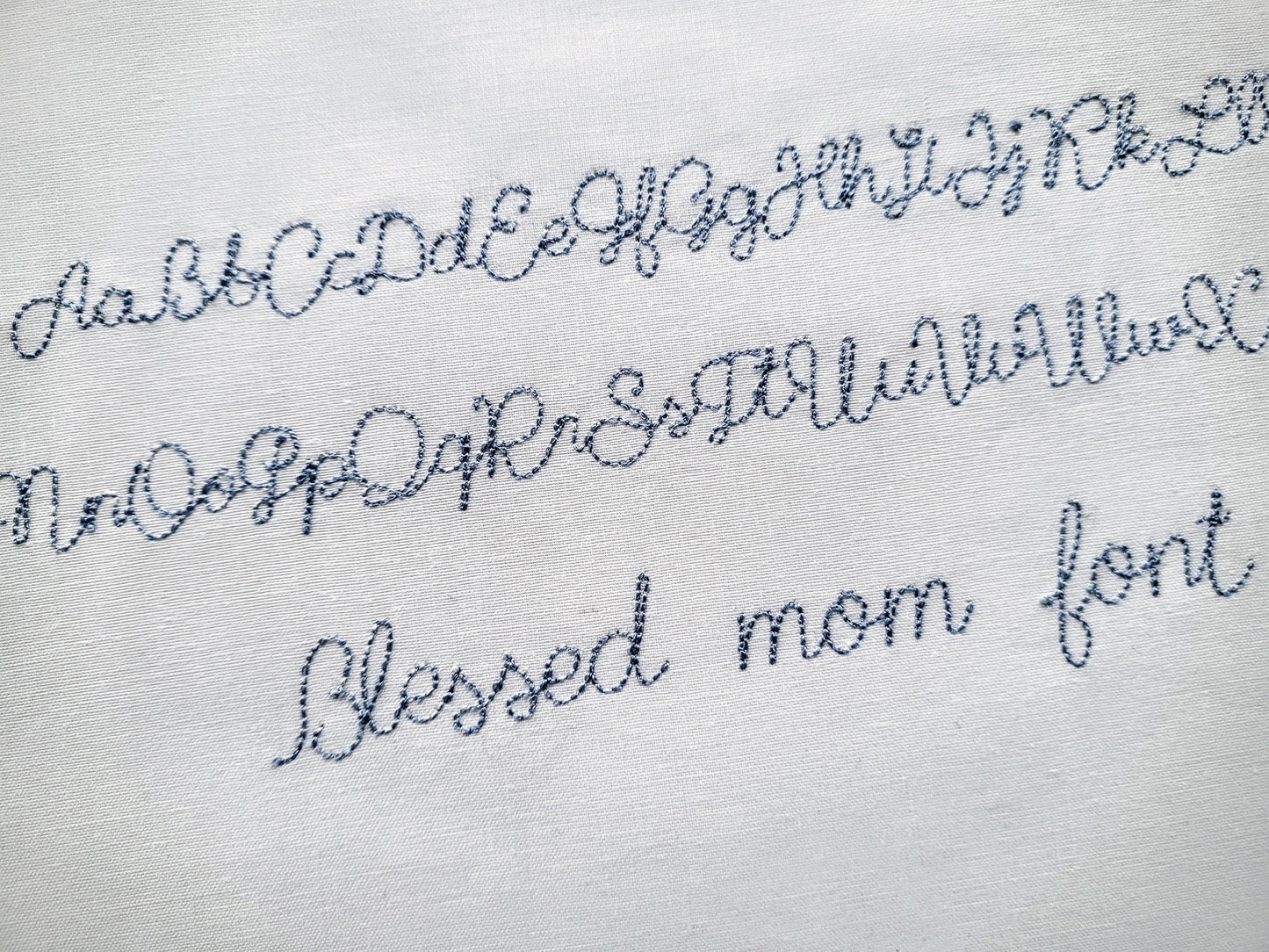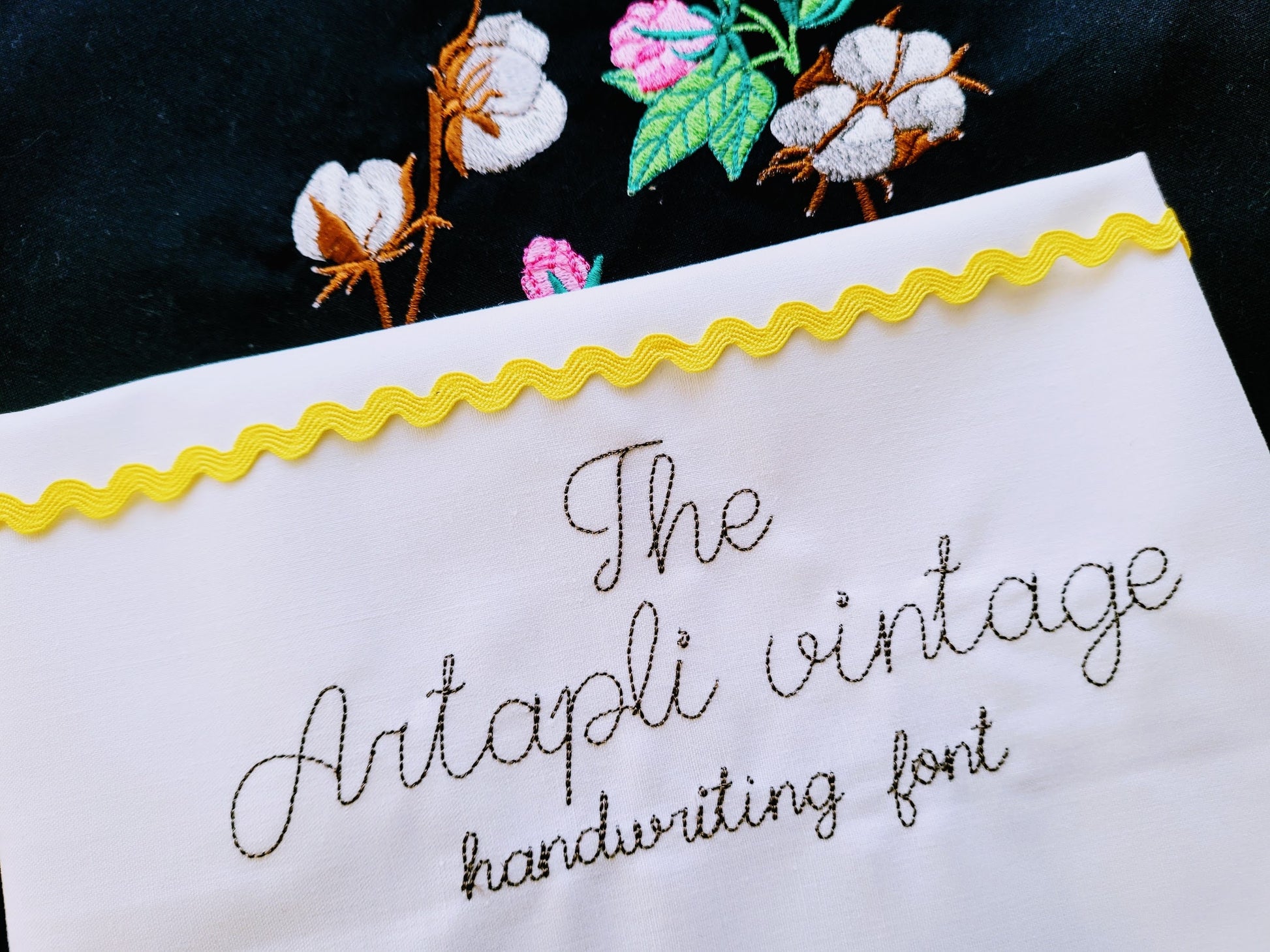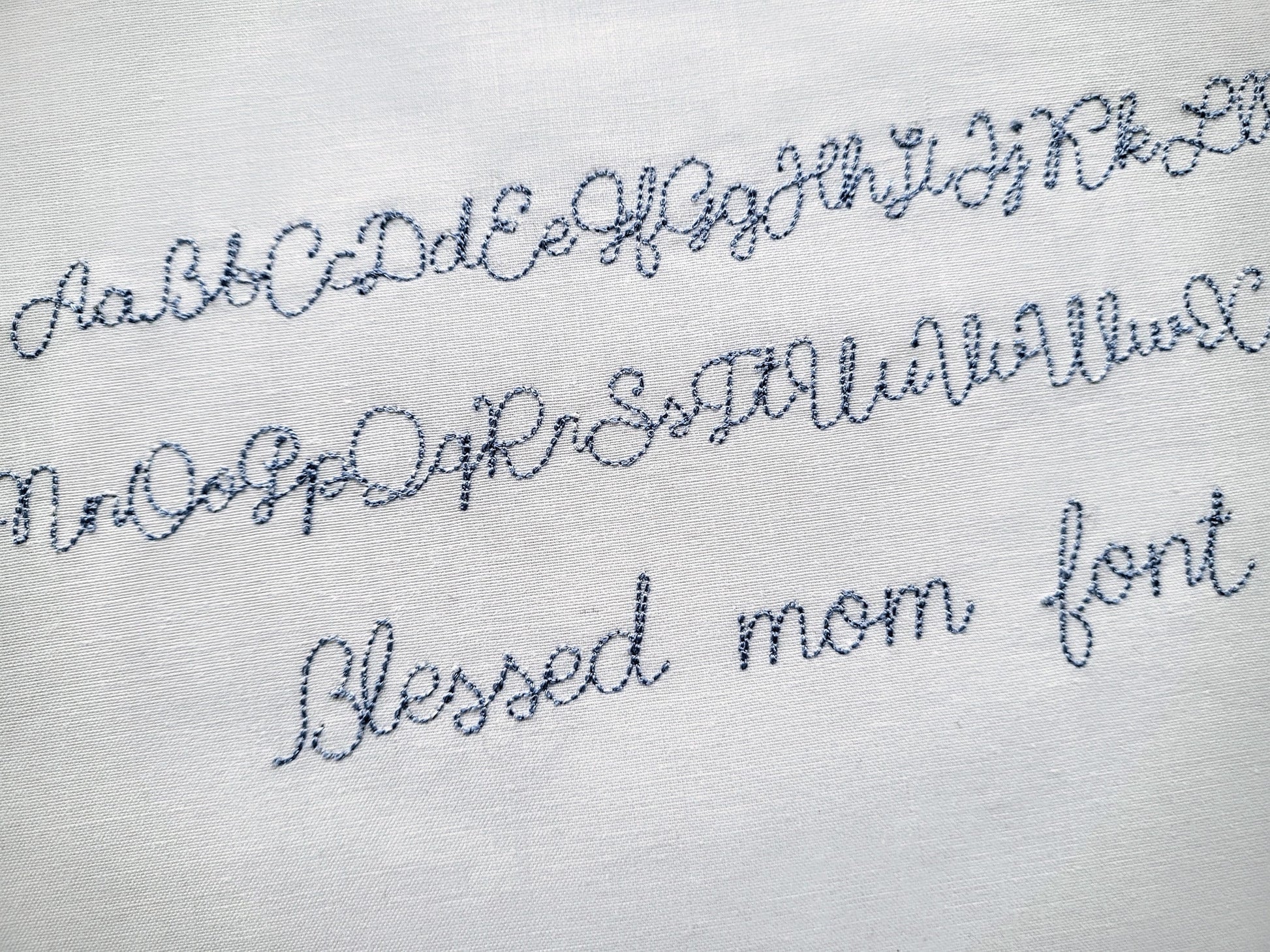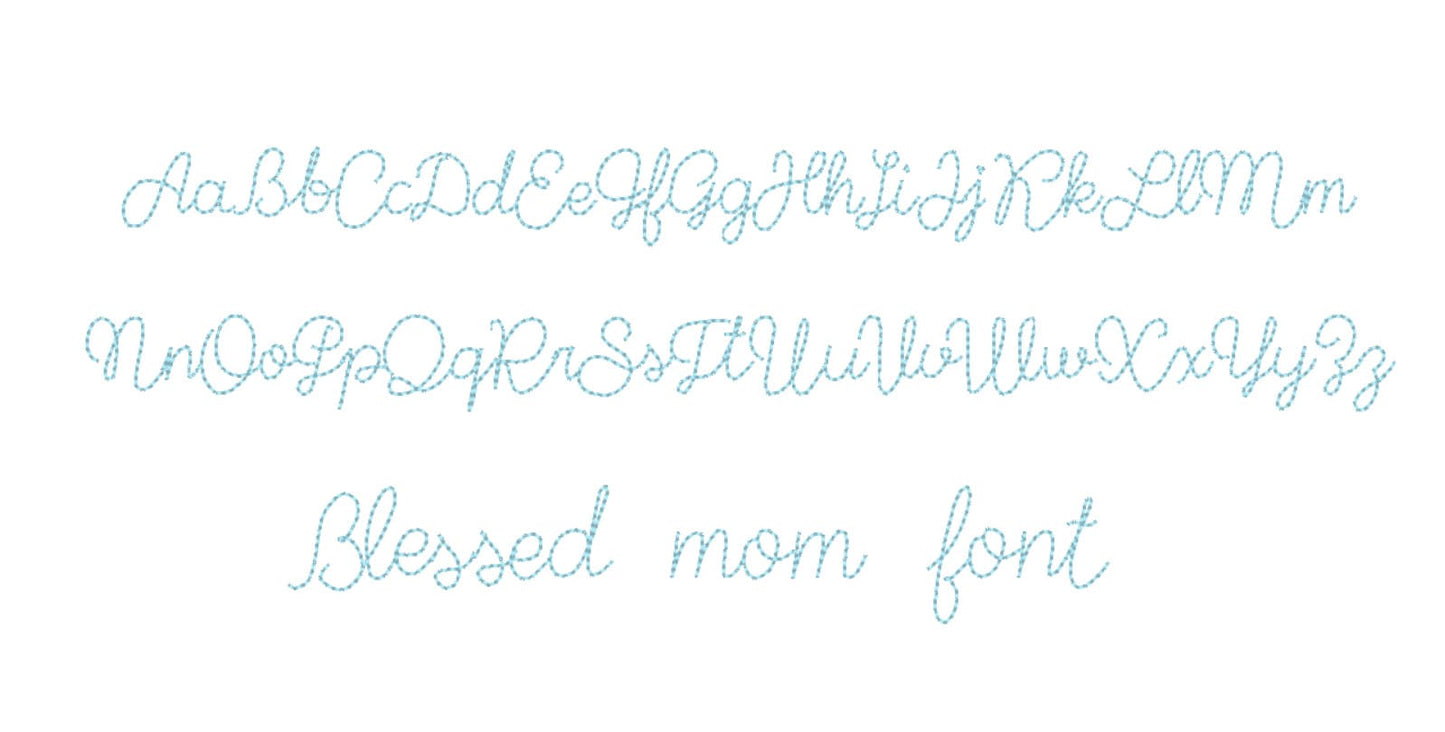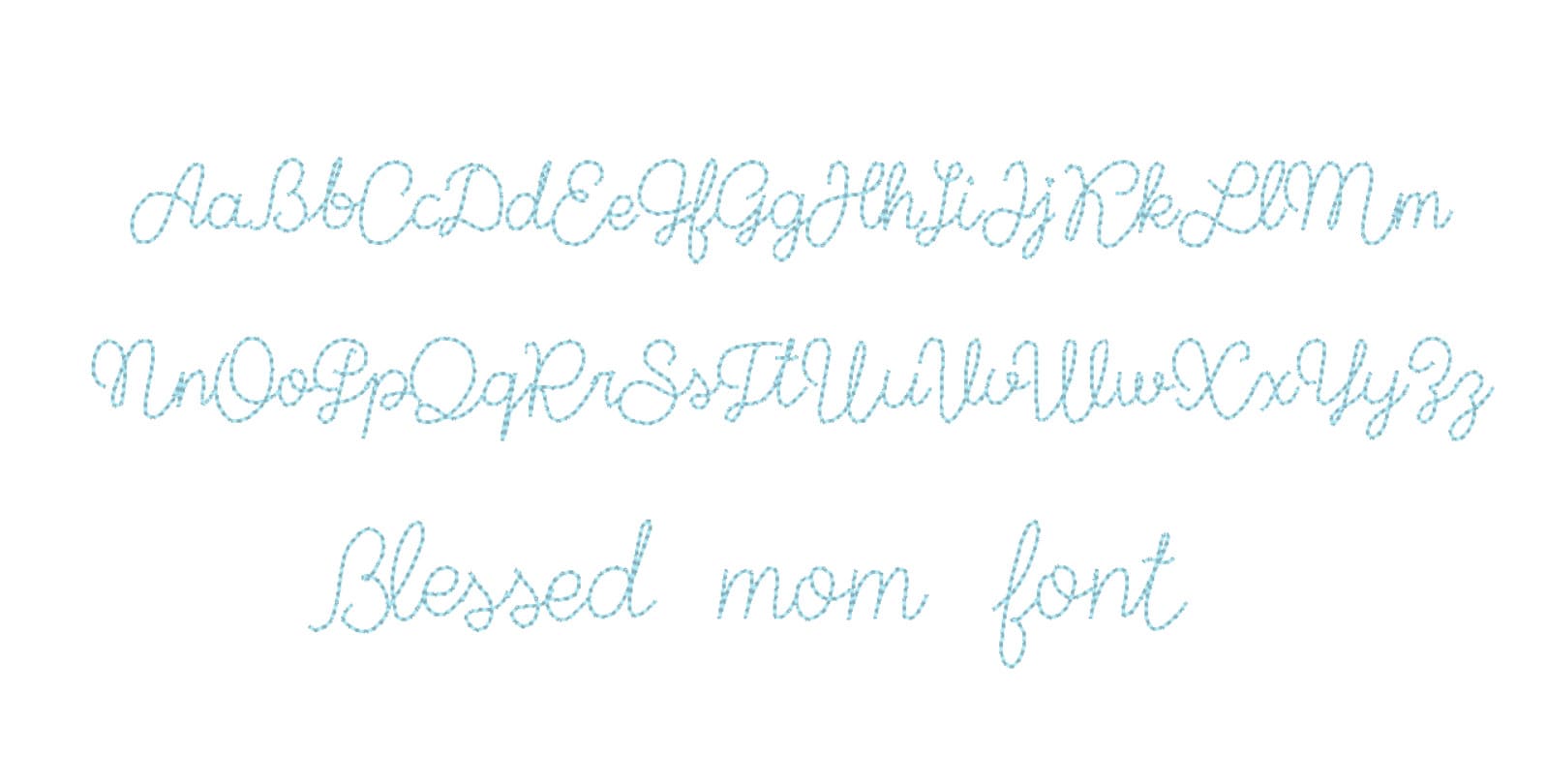
Mini Tiny Micro Handwritten Font
Included: Uppercase A-Z, Lowercase a-z
A tiny handwritten line font in outline stitch, for micro lettering on labels, cuffs, necklines and small gifts.
Uppercase and lowercase letters, plus &, period, comma, question mark and a hash sign. Five micro sizes, from about 0.5 to 1 inch. A single thin line, like handwriting.
• Micro handwritten line font
• Uppercase, lowercase, punctuation
• 5 micro sizes, up to 1 in
Very sweet and delicate font
This is a beautiful font for quilt labeling stitched directly on the backing fabric! It is visible, yet elegant! It stitches smoothly. Will be my go to for any labels from this point forward!
Great font when you want something that looks handwritten.
I used this to stitch inside a 1 inch wide embroidery hoop for a necklace with a name inside. It looked perfect! the word was very legible even though it was tiny. Perfect!
Seller was very helpful and prompt. Tiny script is digitized well and looks very nice!